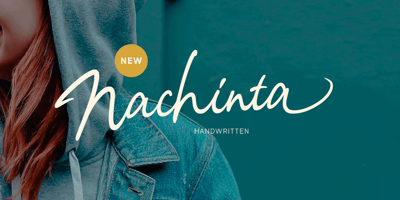
Nachinta
Nachinta font
Nachinta Font Family was designed by Hendry Juanda and published by Letterhend. Nachinta contains 1 styles and family package options. Nagintha is a handwritten script with natural look and feel. You can use also for headline or signature. This type of font perfectly made to be applied especially in logo, and the other various formal forms such as invitations, labels, logos, magazines, books, greeting / wedding cards, packaging, fashion, make up, stationery, novels, labels or any type of advertising purpose.Features : uppercase & lowercase numbers and punctuation multilingual alternates and ligatures PUA encoded We highly recommend using a program that supports OpenType features and Glyphs panels like many of Adobe apps and Corel Draw, so you can see and access all Glyph variations. How to access opentype feature : letterhend.com/tutorials/using-opentype-feature-in-any-software/